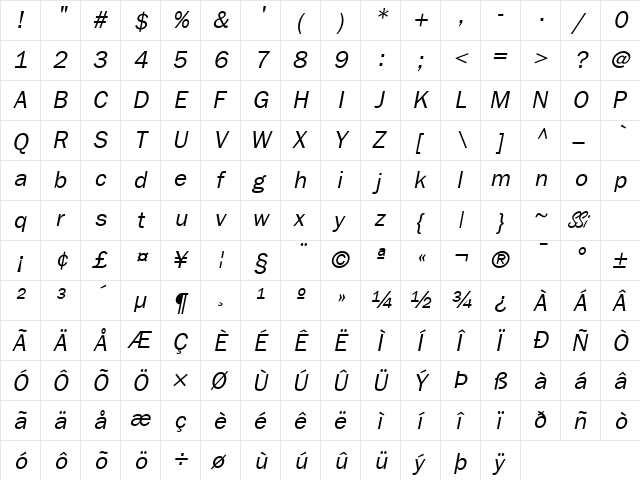
Franklin Gothic SSi Book Italic
Design Context for Franklin Gothic SSi Typeface
Franklin Gothic SSi takes a clean, functional approach — its unadorned letterforms prioritise legibility and work reliably across screen and print environments. Its italic angle brings a sense of urgency and motion to the letterforms.
Font Pairing: Works well alongside a characterful serif or display font that can carry the expressive load while Franklin Gothic SSi handles the functional copy.
Pro Tip: Use Franklin Gothic SSi for UI labels, navigation, and short-form body copy where clean legibility is the priority.